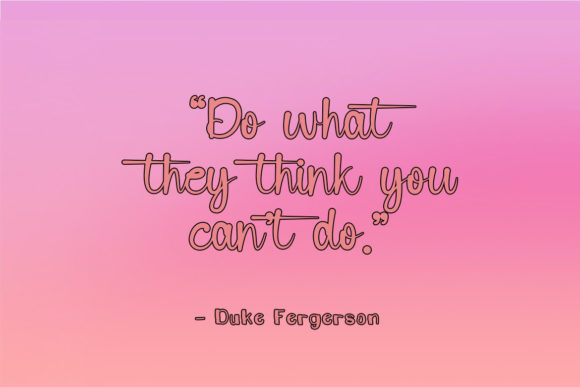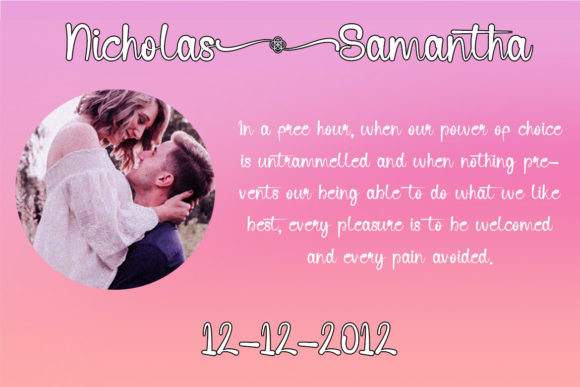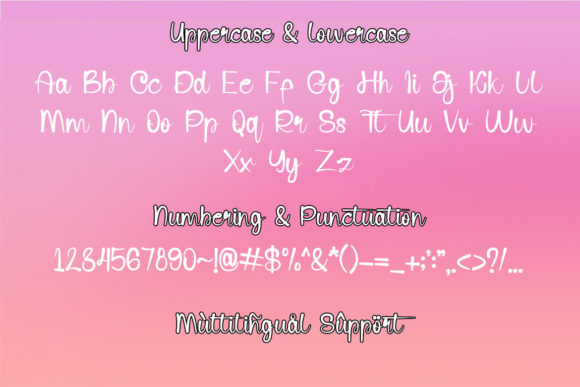
About Sun Day Font
Sun Day is an lovely handwritten font. This versatile script font has a wide spectrum of applications ranging from greeting cards to headlines and is guaranteed to add a romantic feel to your next project. Sun Day is PUA encoded which means you can access all glyphs and swashes with ease!